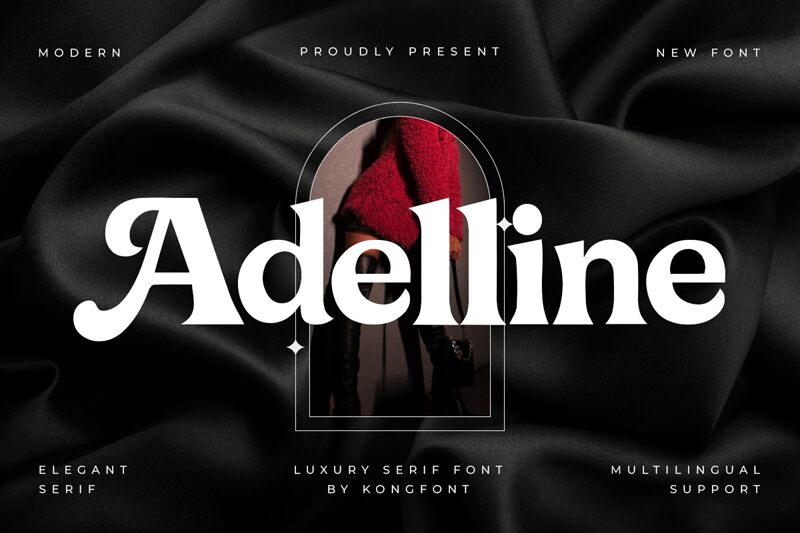
Adelline font designed by Kong Font is a free retro font with a luxurious style. Created with formal projects in mind, it features classic elements that evoke sophistication and refinement. From its high contrast to the serif legibility of its letters, every detail of this font was designed carefully to bring a timeless and stylish whole.
To make the most of your download, apply it to luxury branding with logos, headings, and packaging designs. Showcase your editorial design skill in magazines, books, and album covers. Don’t underestimate its stellar ability to uplift digital designs too, such as websites, applications, and social media platforms.